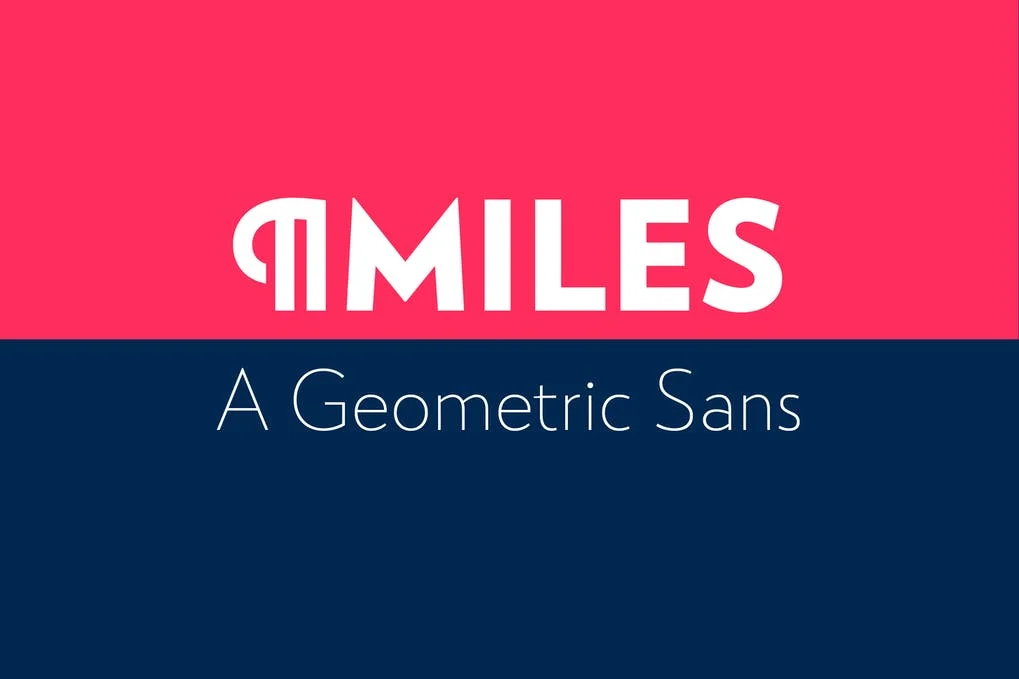
RNS Miles font family combines geometric shapes, open forms and Grotesk mood for achieving a harmonic, neutral and low contrast shape. Clearly influenced by Modernism it’s designed especially for headlines, titles and subtitles. The family consist of 7 weights ramping from thin to black, each weight having a matching italic. Take advantage of Mile’s extended OpenType features, including alternate glyphs, fractions, arrows, old-style figures, numerators, denominators and a variety of symbols and languages.
- 7 weights + 7 italics (Black, XBold, Bold, Medium, Regular, Light, Thin)
- Multilingual
- Stylistic alternates
- Fractions
- Arrows
- Oldstyle figures
- Numerators and denominators
- Standard ligatures
- RNS Miles was selected on text category for Tipos Latinos 2016